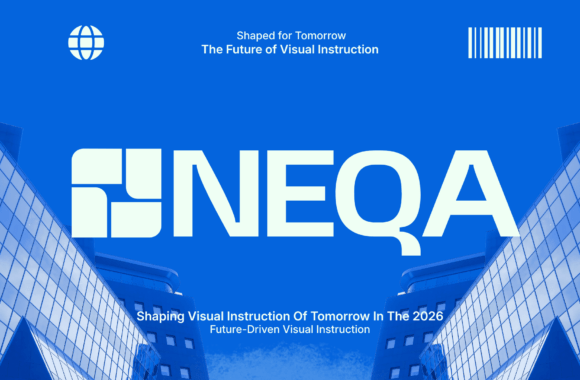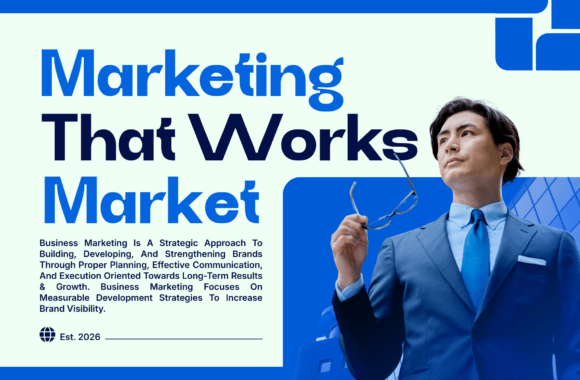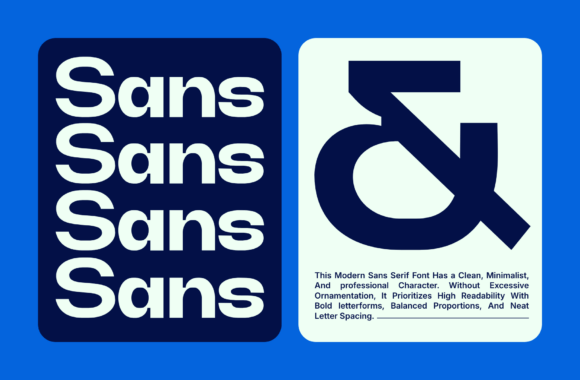
Introduction to Himer Font
Have you ever been stuck in a creative project, staring at a blank page, wondering which font will give it that extra oomph? We’ve all been there, searching for the perfect design resource to elevate our work. That’s why we’re excited to introduce the Himer Font, a modern, bold sans-serif typeface designed to make your projects shine.
With its striking thick strokes, balanced proportions, and minimalist style, the Himer Font is perfect for branding, logos, headlines, posters, business cards, social media, packaging, and corporate identity projects. Whether you’re working on a high-quality design for a client or a personal creative project, the Himer Font is a valuable addition to your design toolkit, offering a confident, contemporary look and excellent readability across both digital and print media.
Key Features of Himer Font
- High-quality design resource ideal for creative projects, offering a unique and elegant style.
- Comes with a transparent background, allowing for seamless integration into various design environments.
- Supports a wide range of languages, making it a versatile design resource.
- Features a clean and modern design, perfect for various applications, including logos, typography, and graphics.
- Includes a comprehensive character set, including uppercase and lowercase letters, numbers, and punctuation marks.
Honest Review: Himer Font
As a designer, I’m always on the lookout for high-quality design resources that can elevate my creative projects. Recently, I had the chance to work with the Himer Font, and I must say it’s been a game-changer.
Here’s what I love about the Himer Font:
- ✨ Stunning glyphs with intricate details that add a touch of sophistication to any design.
- ✨ Highly versatile, making it suitable for a wide range of creative projects, from logos to typography-based designs.
- ✨ Features a transparent background, allowing for seamless integration with other design elements.
- ⚠️ Limited language support, which might be a concern for designers working on multilingual projects.
- ⚠️ Not suitable for very large-scale designs, as it may lose its clarity and legibility.
Overall, I’m thoroughly impressed with the Himer Font. Its high quality and versatility make it a valuable addition to any designer’s toolkit. If you’re looking for a reliable design resource, I highly recommend giving it a try.
Tips for Getting the Most Out of Himer Font
For the best results, use Himer Font in combination with other design elements, such as images and graphics. You can also experiment with different font sizes and colors to create a unique and eye-catching design.
Himer Font is perfect for a variety of creative projects, including graphic design, presentations, and marketing materials. Its high quality design and transparent background make it a great resource for anyone looking to add a professional touch to their project.